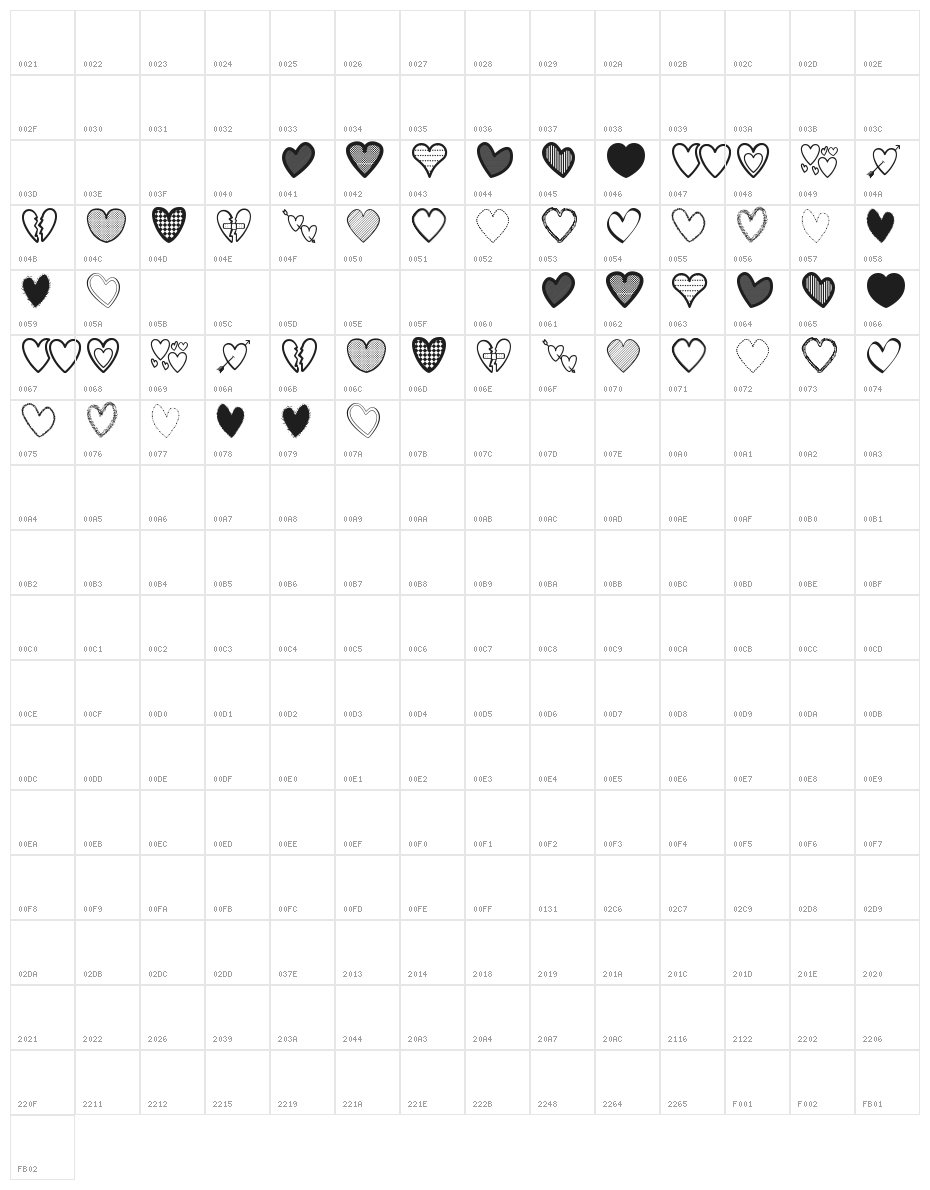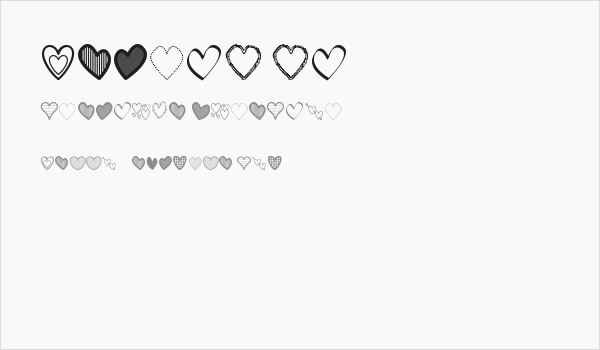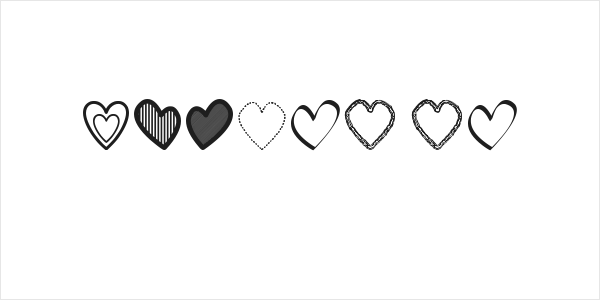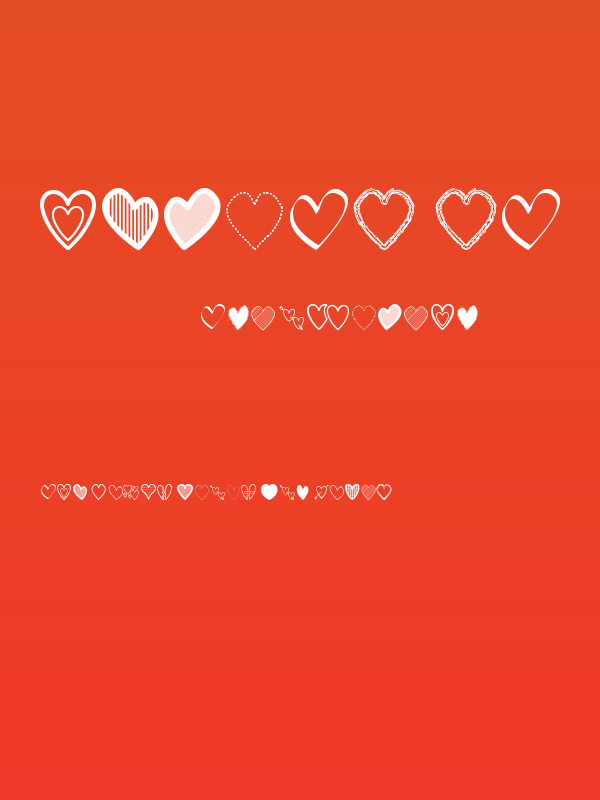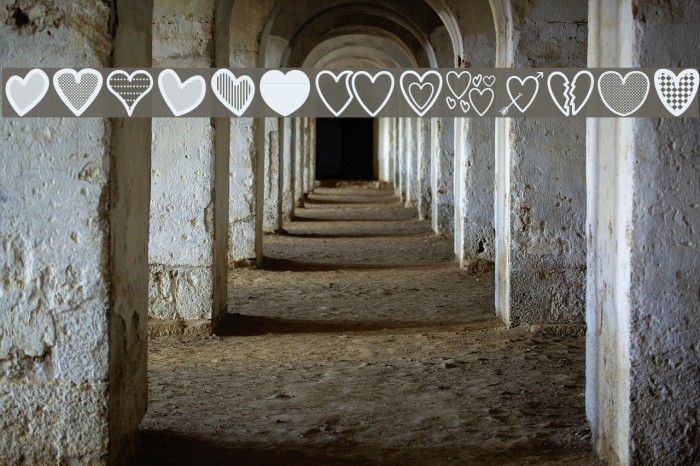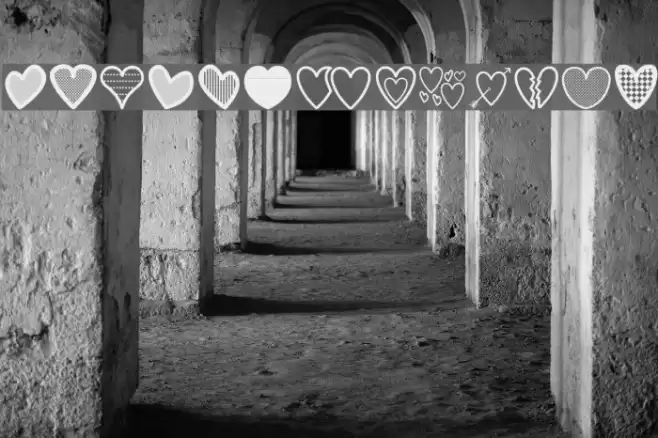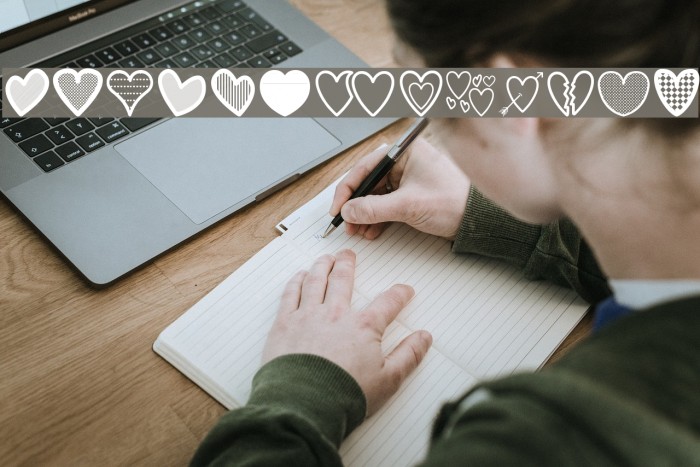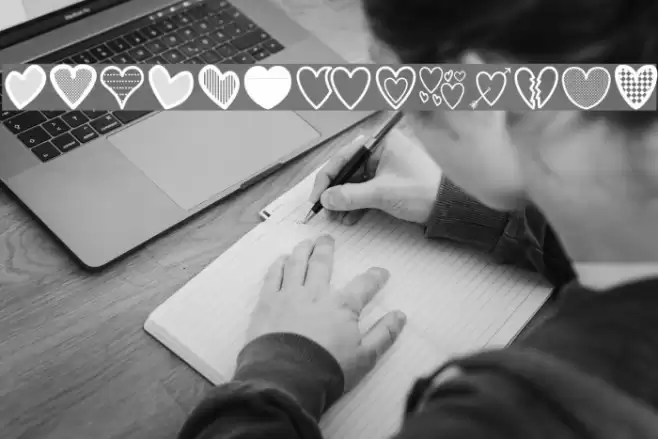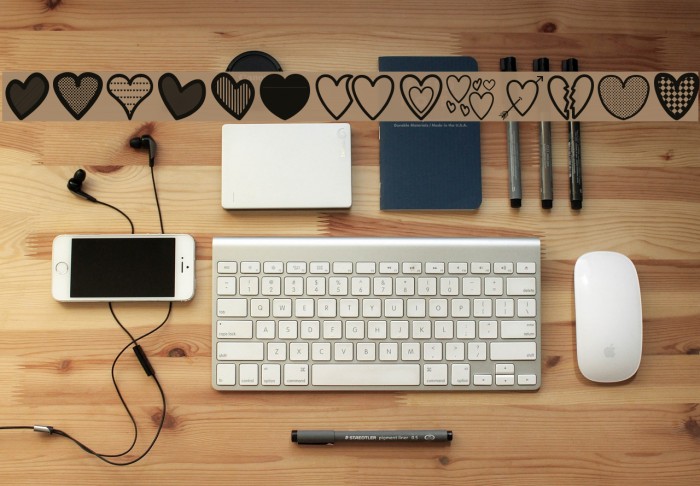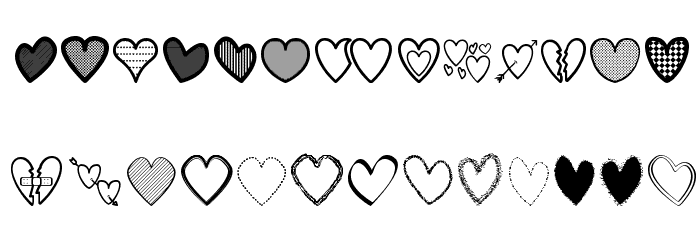
Hearts St Font
Hearts St Description
A decorative collection of heart-shaped glyphs in various styles, including filled, outlined, patterned, broken, and textured designs. Each character is a unique heart illustration, with some featuring arrows, stitches, or checkered patterns.
| Overall Style | Decorative, Playful, Thematic |
| Use Case | Logos, Headlines, Decorative elements |
| Proposed Projects | Valentine's Day cards, romantic invitations, scrapbooking, children's crafts, themed posters, digital stickers. |